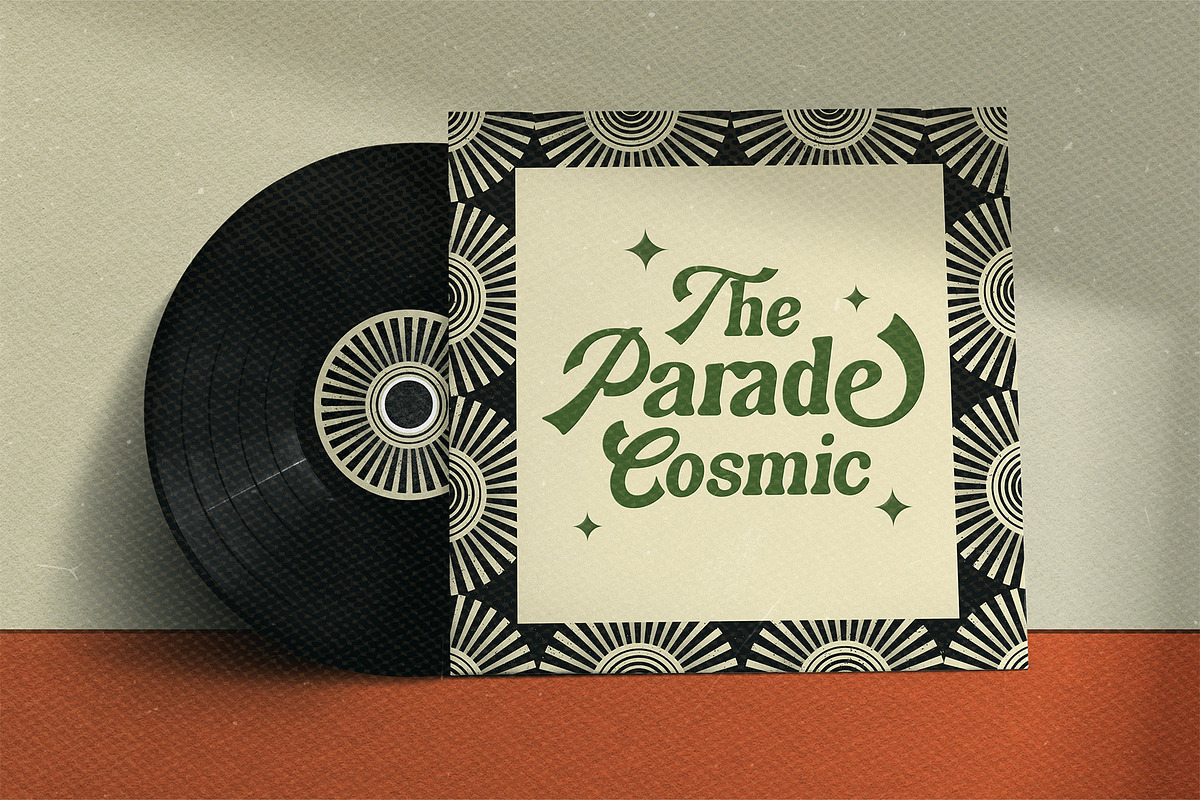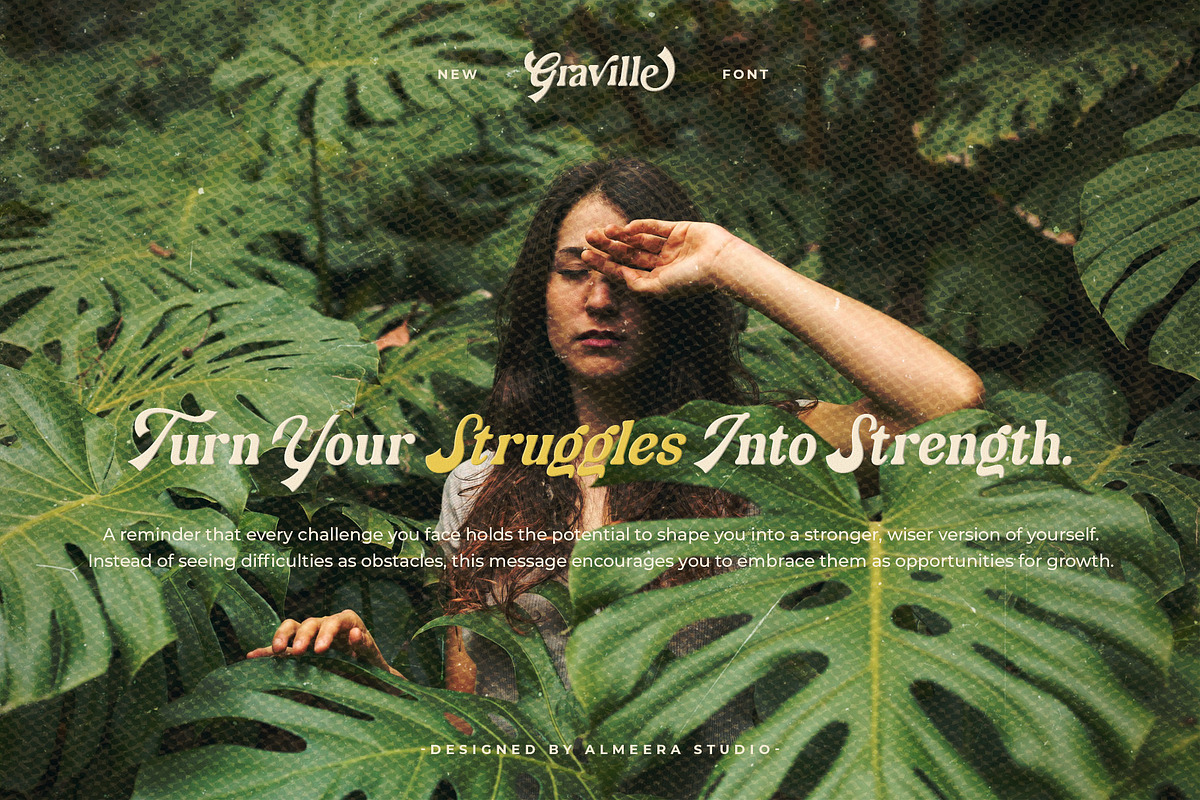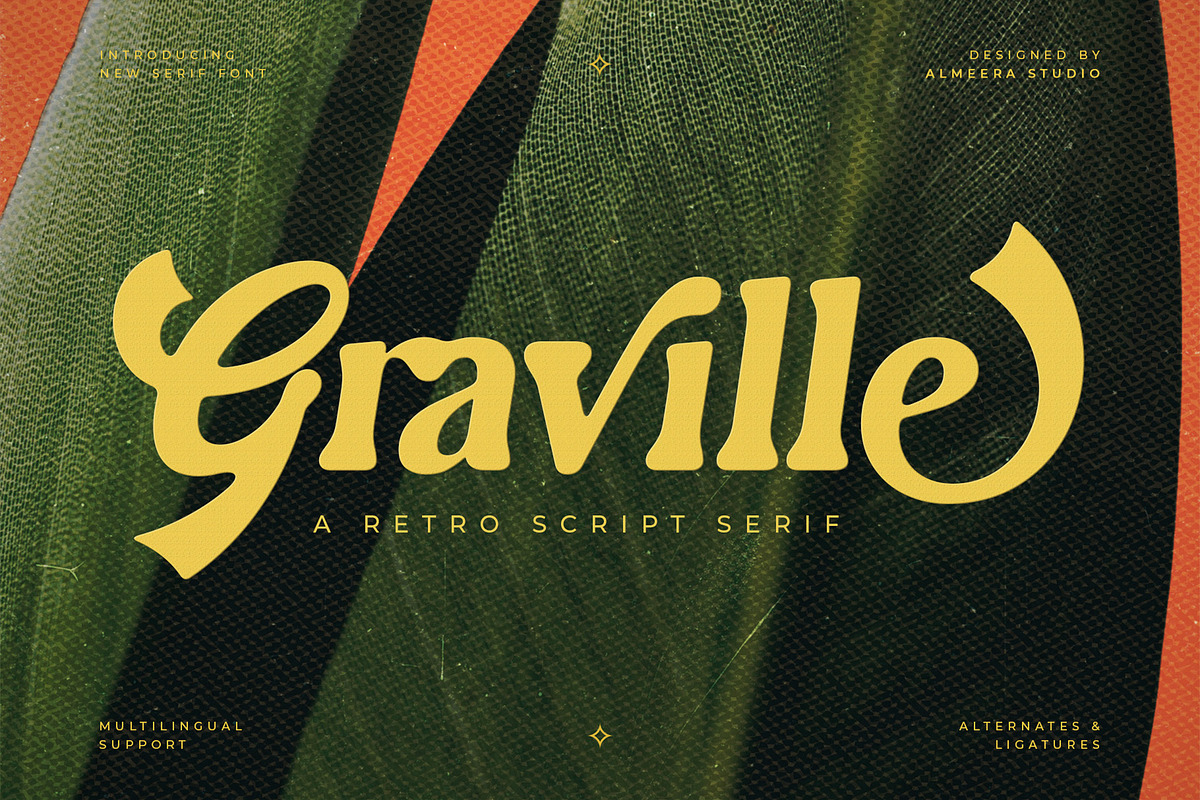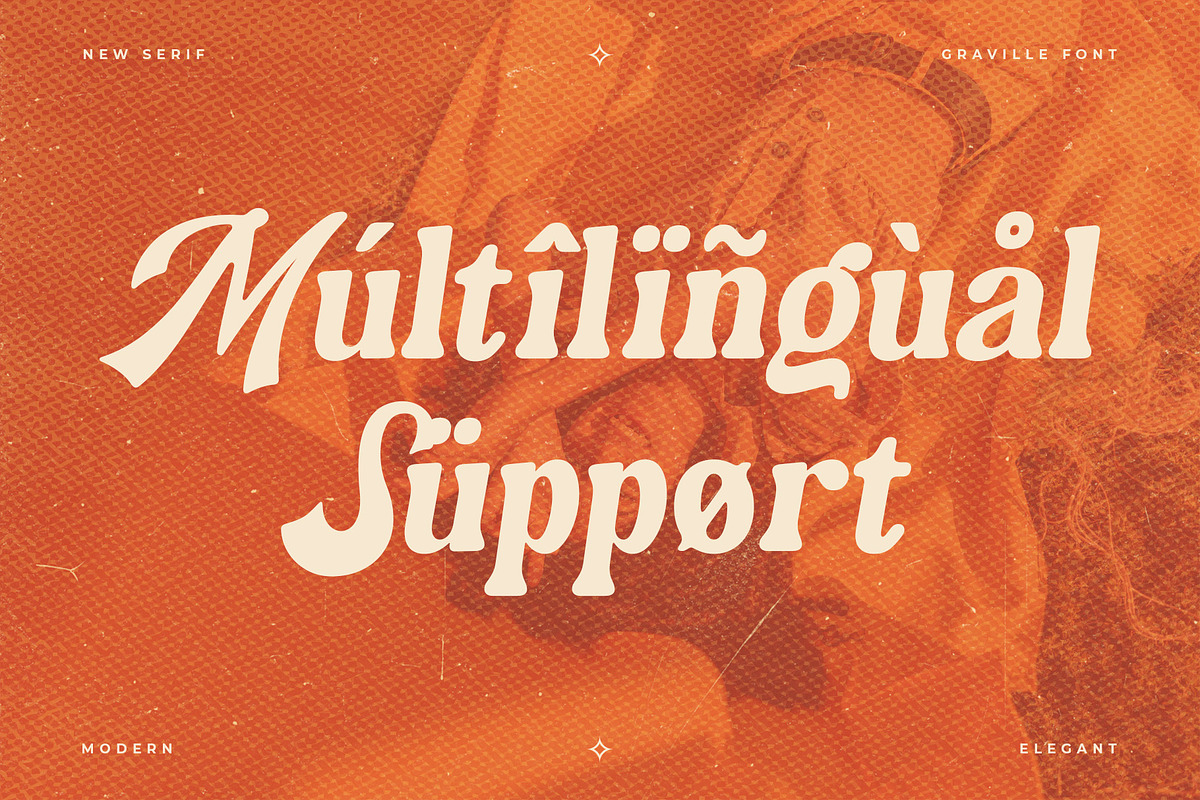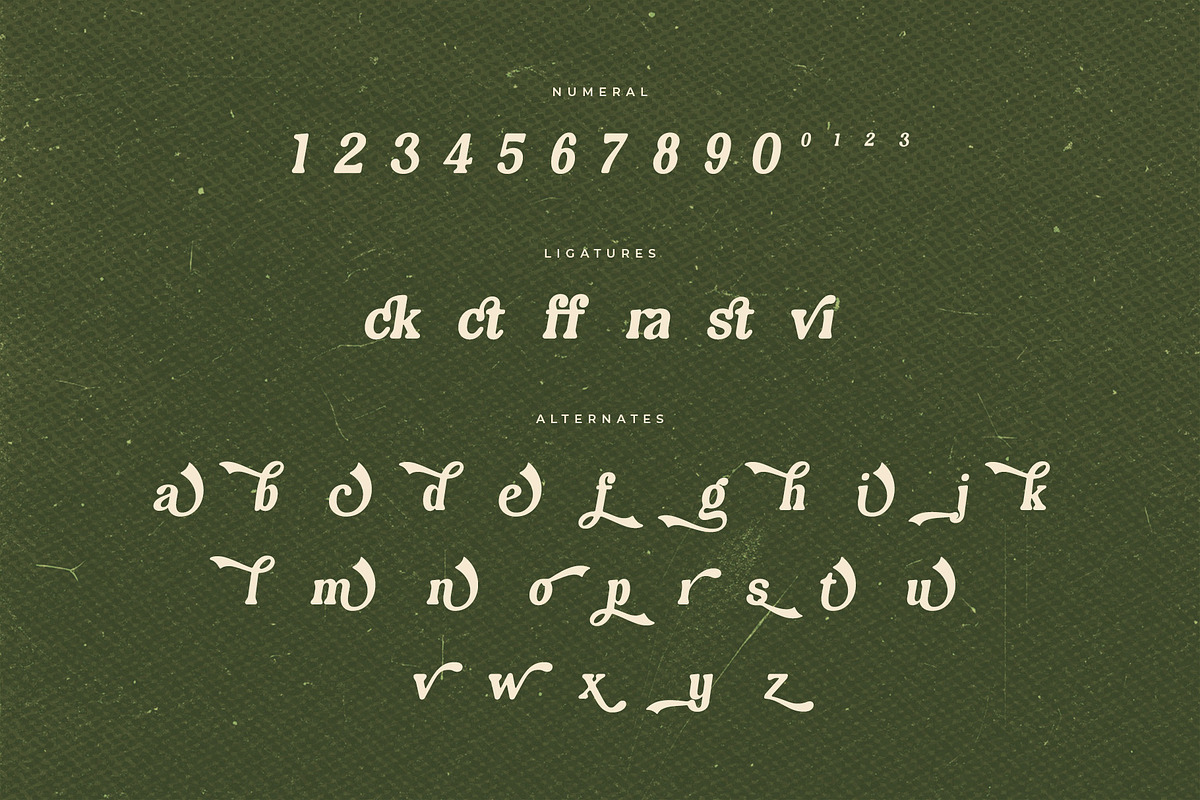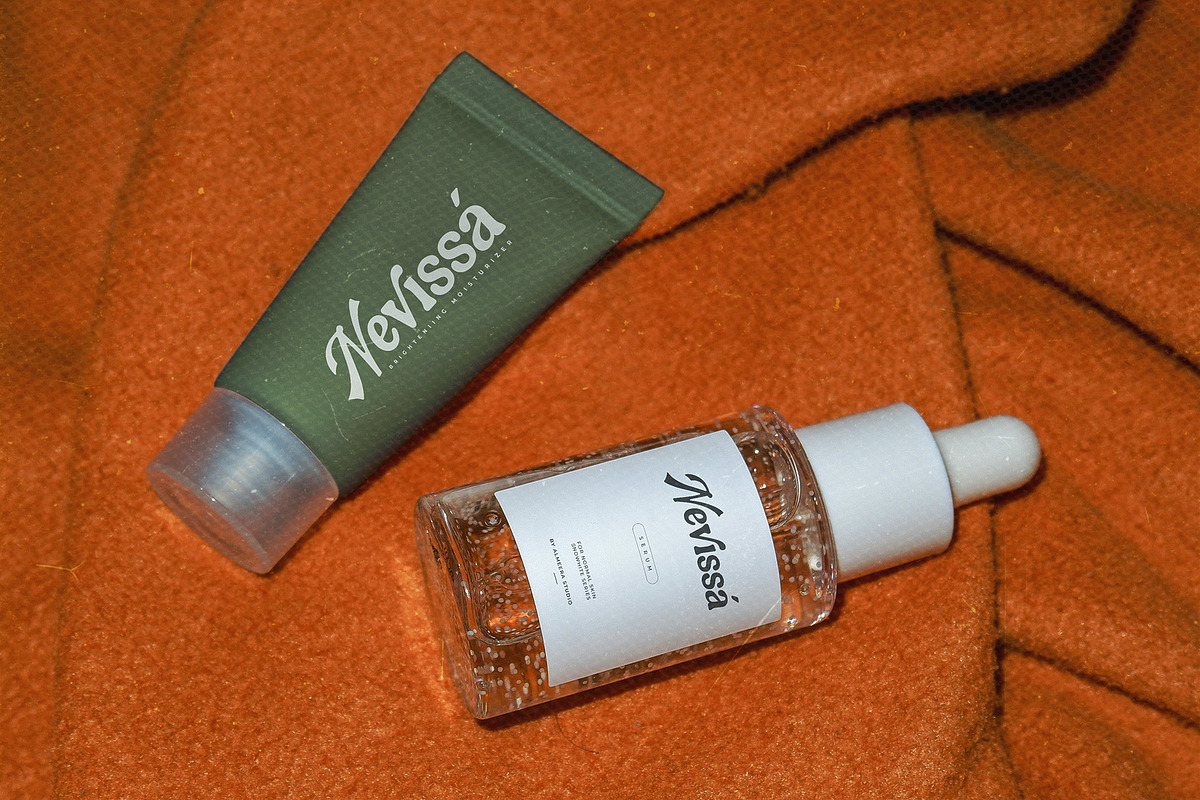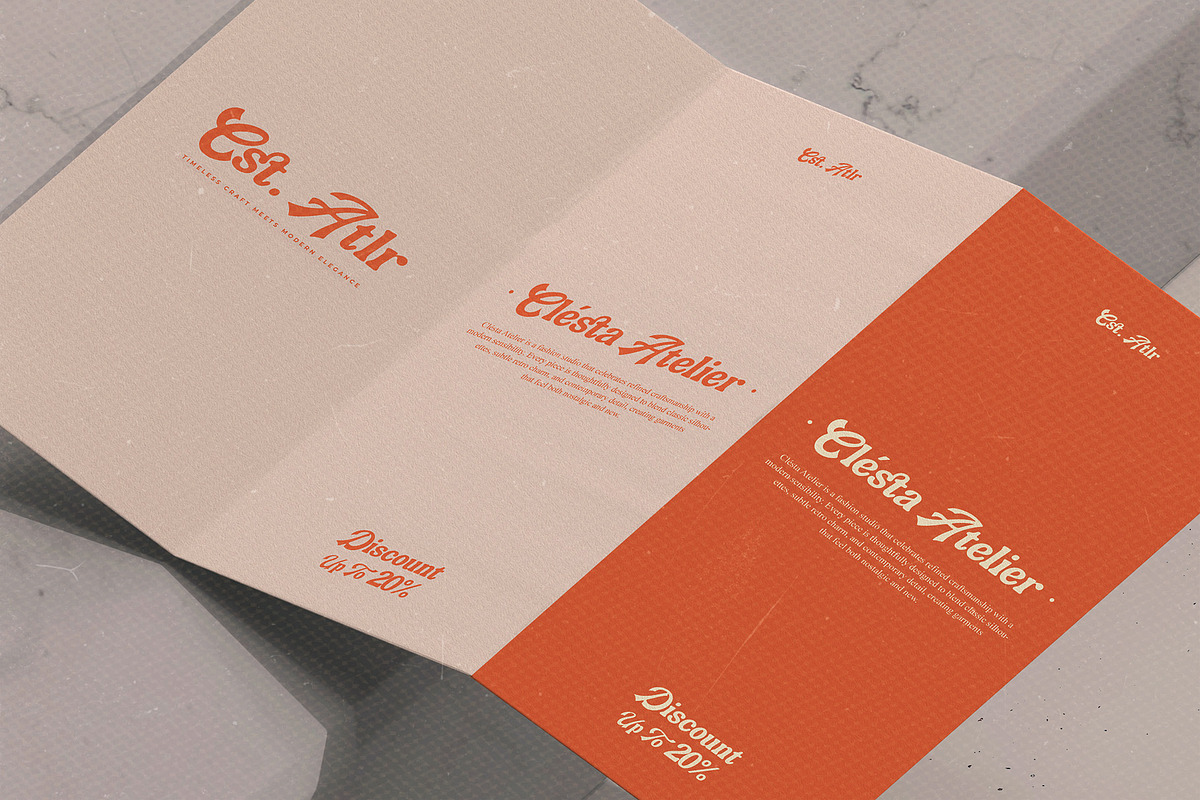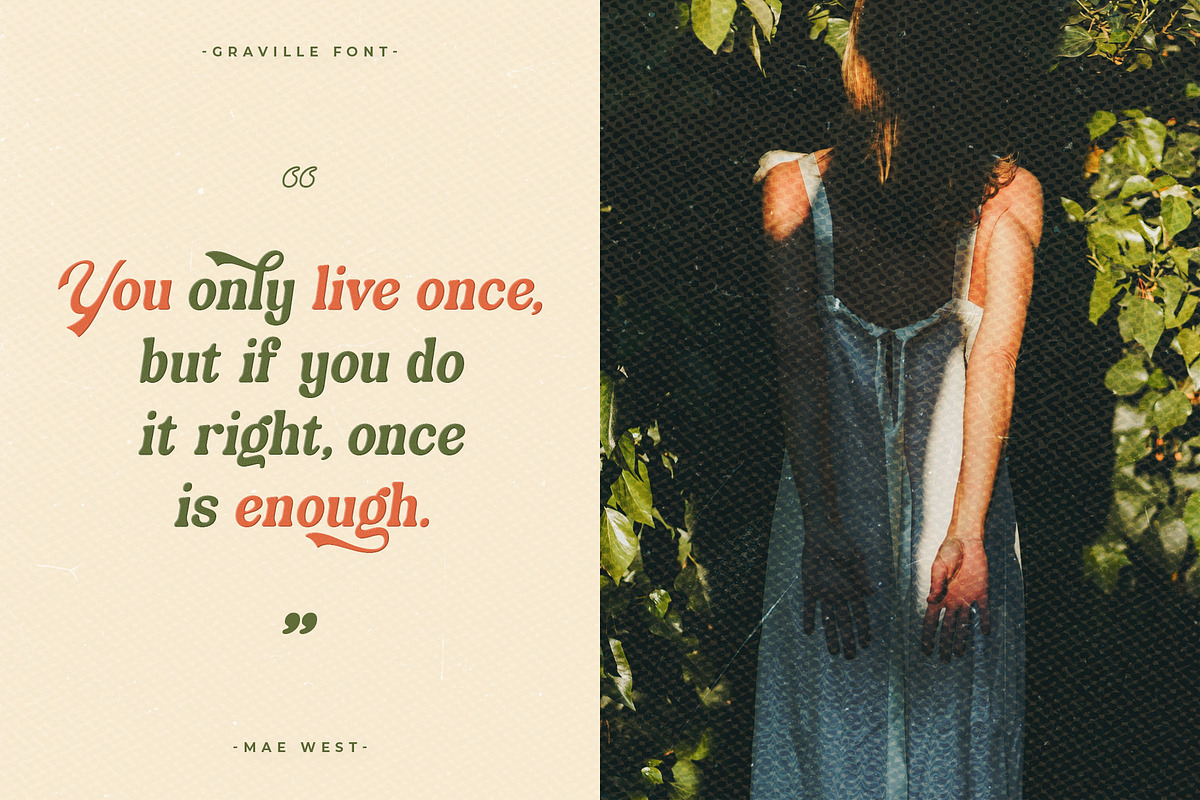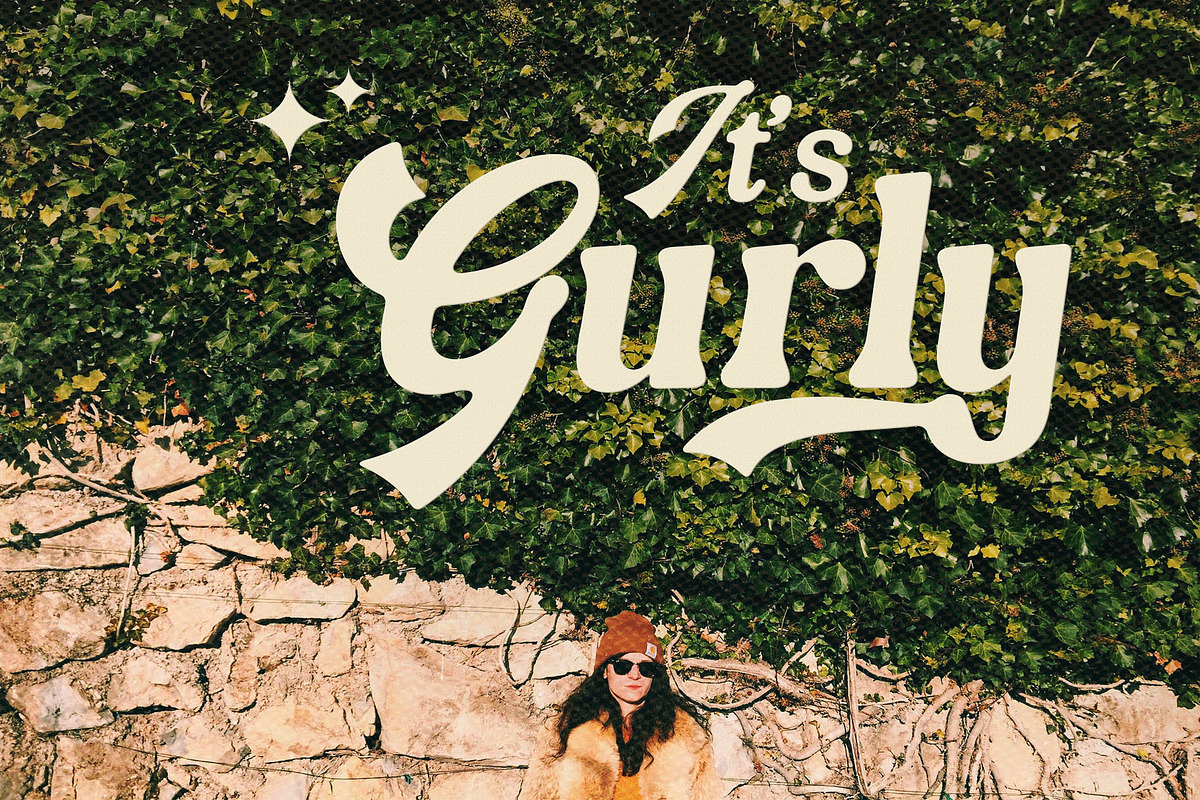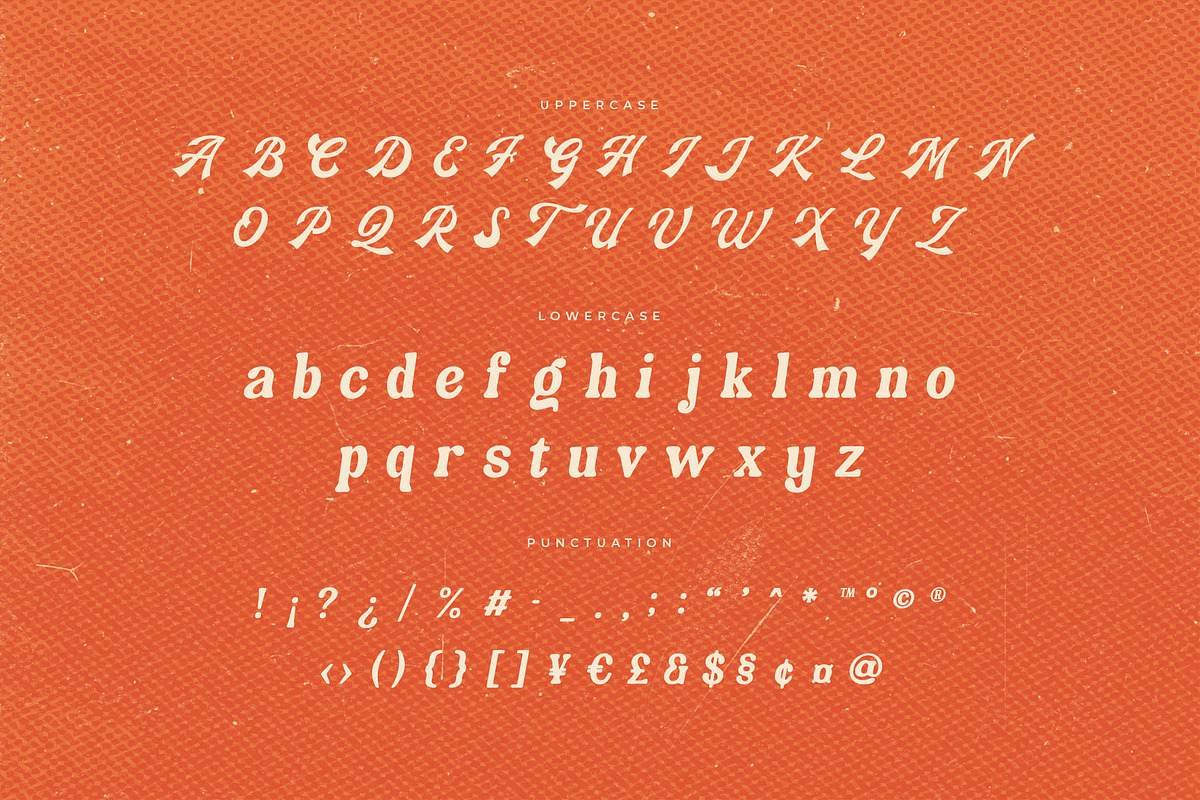
Graville – Retro Script Serif
Graville is a Retro Script Serif that blends the warm charm of 70’s letterforms with a bold, modern serif structure. Every curve is crafted to evoke a sense of nostalgia while maintaining a contemporary aesthetic, making it perfect for branding, packaging, retro posters, editorial titles, and expressive creative work. With organic alternates and unique ligatures, Graville offers flexible visual personality—ideal for designers seeking a vintage look that still feels fresh and stylish.
- Numbers, fractions
- Punctuation and symbols